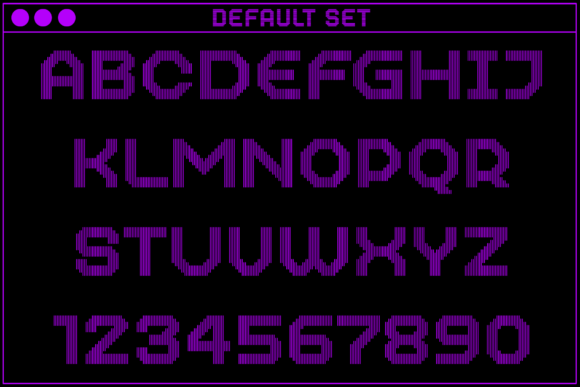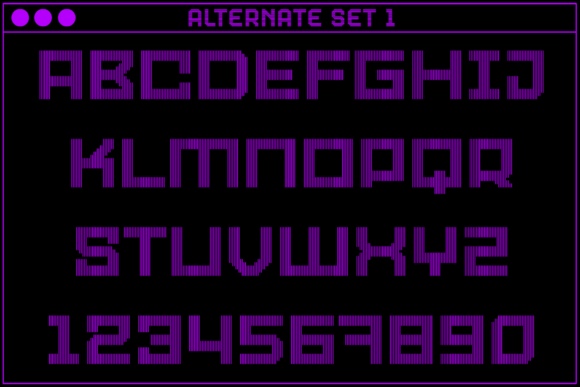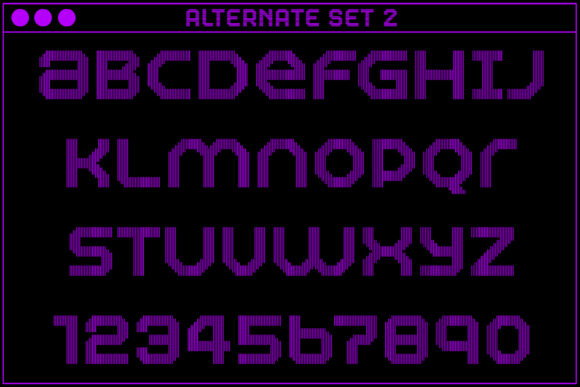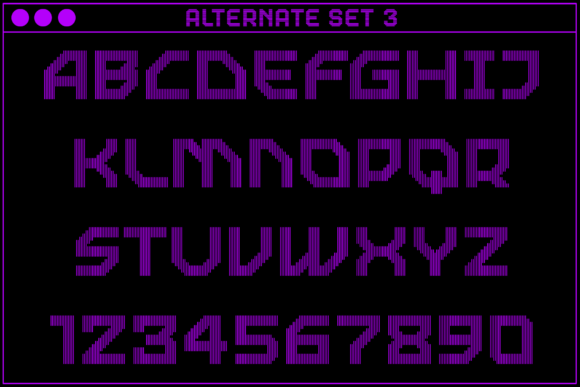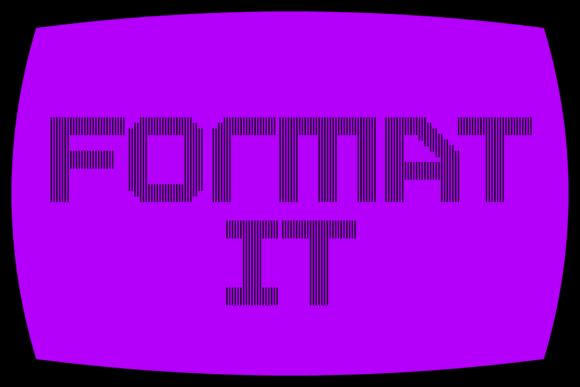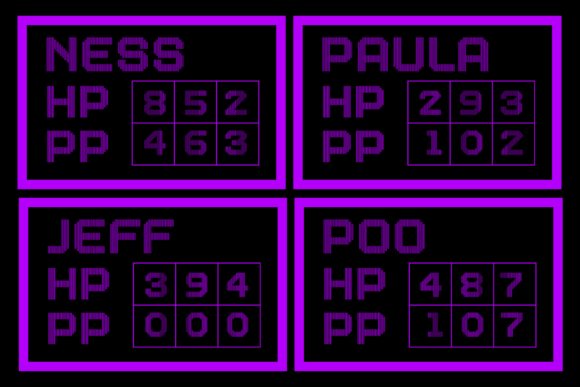
Introduction to MultiType Lines Wide 2 Font
Have you ever been working on a creative project, pouring your heart and soul into a design, only to feel like something is missing? A spark of inspiration that sets your design apart from the rest? For designers, finding that perfect font can be the key to unlocking a truly unique and eye-catching design. This is where the MultiType Lines Wide 2 Font comes in – a game-changing, pixelated decorative font that adds a touch of edginess to any design.
As a valuable design resource, MultiType Lines Wide 2 Font offers a level of versatility that’s hard to find in other fonts. With its PUA encoded features, you can easily access all glyphs and swashes, making it perfect for designers looking to add a personal touch to their high-quality designs. And the best part? It’s available for free download, allowing you to experiment with its trendy, distorted look on your next creative project.
Key Features of MultiType Lines Wide 2 Font
- High-quality design resource for creative projects, ideal for use in graphic design, digital art, and more
- MultiType Lines Wide 2 Font offers a unique blend of elegance and sophistication, perfect for a wide range of applications
- Transparent background allows for seamless integration with various design elements and backgrounds
- High-resolution design, suitable for use at large sizes without compromising quality
Honest Review: MultiType Lines Wide 2 Font
I recently had the opportunity to work with the MultiType Lines Wide 2 Font, and I must say, it was a great addition to my design resource library. This free download has been a lifesaver for my creative project, providing a high-quality font that’s perfect for a variety of applications.
One of the things I love about the MultiType Lines Wide 2 Font is its versatility. It’s a great choice for projects that require a clean and modern look, and it pairs well with a transparent background to really make the text pop. ✨
- Wide range of styles and weights to choose from
- Perfect for digital and print designs
- High-quality font files for smooth rendering
While the MultiType Lines Wide 2 Font is a great resource, there are a few limitations to be aware of. For example, it’s not suitable for projects that require a lot of bold or condensed text, as it can become difficult to read. ⚠️
Overall, I’m very impressed with the MultiType Lines Wide 2 Font. It’s a great addition to any design library, and I highly recommend it for any creative project that requires a high-quality, modern font.
The MultiType Lines Wide 2 Font is a high-quality design resource ideal for various creative projects. With a transparent background, it provides flexibility in design composition.
Tips for Getting the Most Out of MultiType Lines Wide 2 Font
Experiment with different font sizes and colors to achieve the desired visual effect. Combine the font with other design elements to create a unique and eye-catching design.
The MultiType Lines Wide 2 Font is suitable for various design projects, including typography-based designs, branding materials, and digital products.